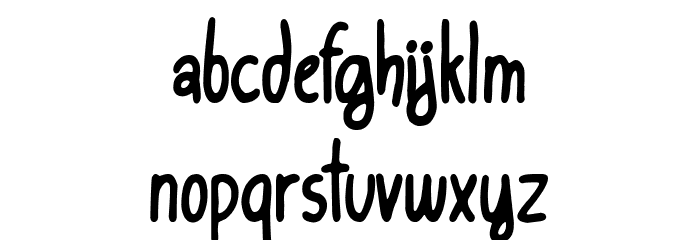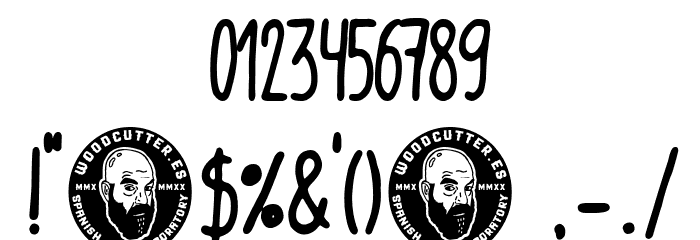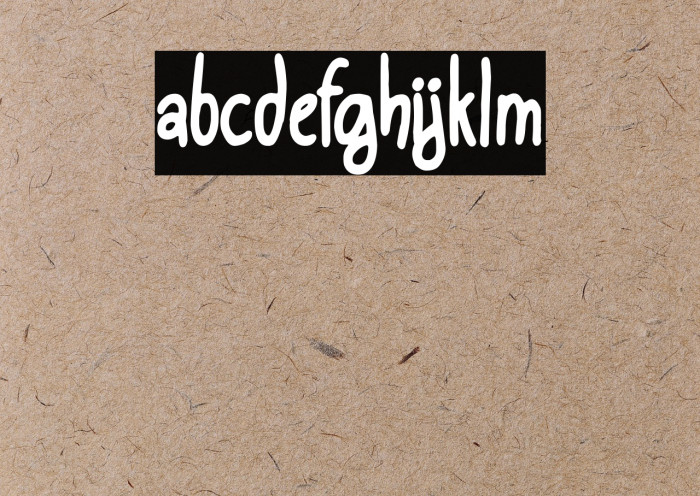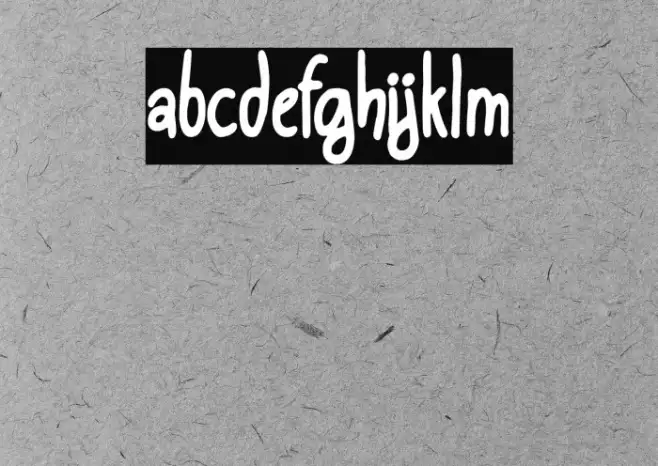
María Magdalena Font
This font features a playful and whimsical handwritten style, characterized by its rounded and slightly irregular letterforms. The strokes are consistent in thickness, giving it a uniform appearance while maintaining a casual and friendly vibe. The letters are slightly tilted, adding to the informal and approachable feel. The font includes both uppercase and lowercase letters, numbers, and a variety of special characters, making it versatile for different uses. Its unique style is suitable for projects that require a personal touch or a fun, lighthearted aesthetic.
A playful, handwritten font with rounded, slightly irregular letterforms.
- Font: María Magdalena
- Proposed Projects: Ideal for children's books, greeting cards, informal invitations, and playful branding.
- Category: Handwritten
- Overall Style: Casual
- Use Case: Headlines, Logos, Informal Text